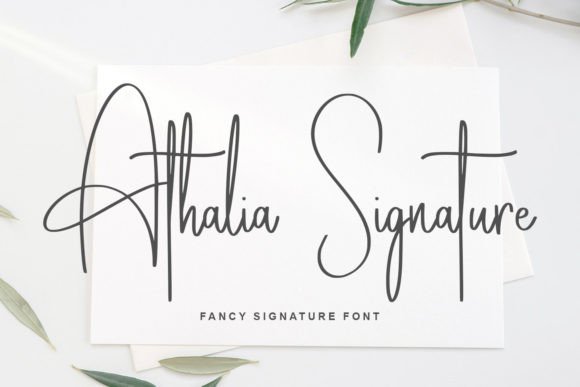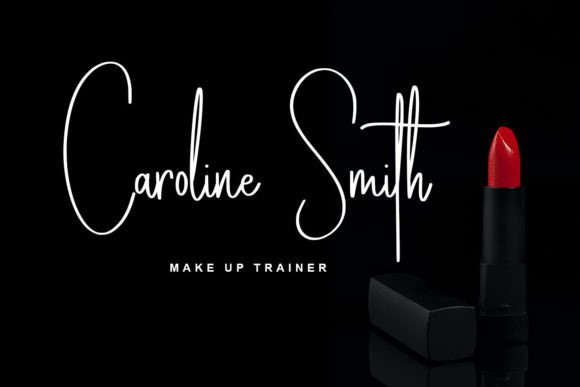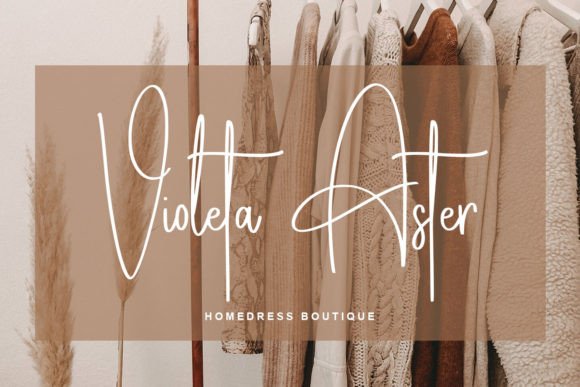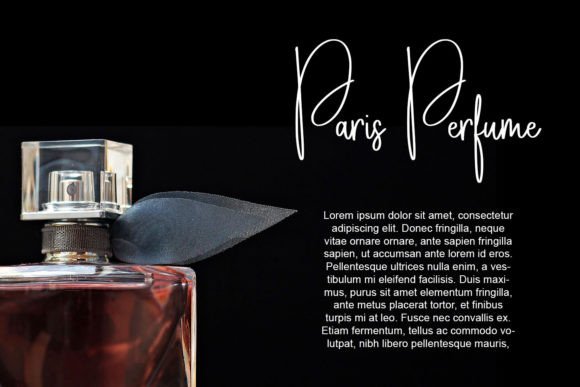
Athalia Signature Font
About the Athalia Signature Font
Add a touch of class to your work with the Athalia Signature Font, a truly exceptional typeface. ATHALIA is a natural signature font that is great for branding, quotes, logos, t-shirt designs, tote bag designs, cards, banners, social media, and more.
Athalia’s flowing, organic forms make it ideal for projects requiring a touch of personal warmth and elegance. It excels in branding applications where a handwritten feel is desired, particularly logos, short taglines, and social media graphics. Use it sparingly in packaging or on posters to highlight key elements. Avoid using it for body text or lengthy passages; its readability suffers at smaller sizes.
Pair Athalia with a clean sans-serif like Lato for a modern contrast, or a classic serif such as Garamond for a more traditional feel. A geometric sans-serif, like Montserrat, offers a contemporary balance to Athalia’s fluid strokes. For a playful yet sophisticated outcome, consider pairing it with a delicate script font.
Athalia’s personality is best described as elegant yet approachable. It suits brands aiming for a sophisticated yet personal brand image – think boutique shops, artisan goods, or personal blogs. Its handwritten quality conveys authenticity and a handcrafted aesthetic.
Athalia Signature Font Usage Examples
Athalia Signature Font Example